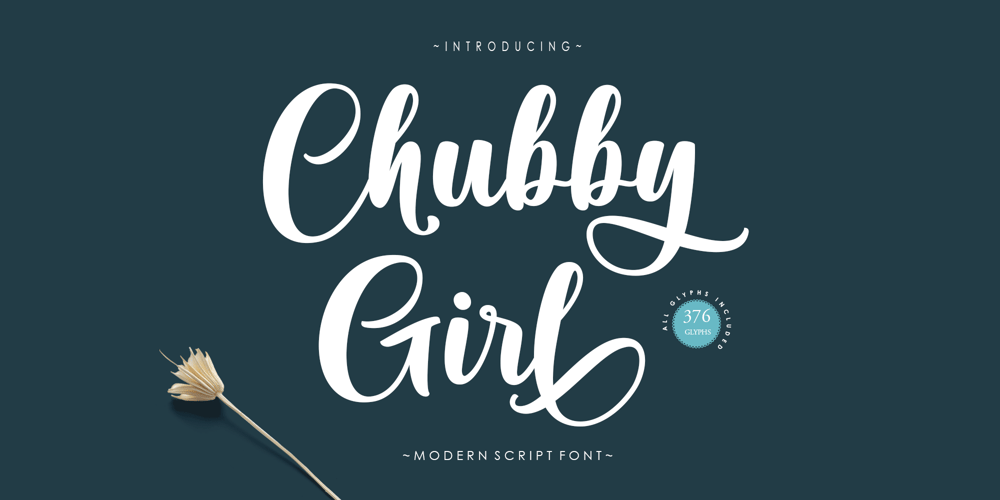
Chubby Girl Font Family was designed by Muriza Moriztype and published by moriztype. Chubby Girl contains 1 styles and family package options. Introducing Chubby Girl Script, a Modern classy fonts with strong styles and circle movement. It’s allowing you to create hand lettering is an instant. The idea is to help designers to combine and incorporate together of the fonts in your design creative work.Chubby Girl Bold Script Font is a hand-lettered bold and smooth script. This font is awesome for your creative project such as Logotype, Branding, Packaging, Merchandise, label, and much more.